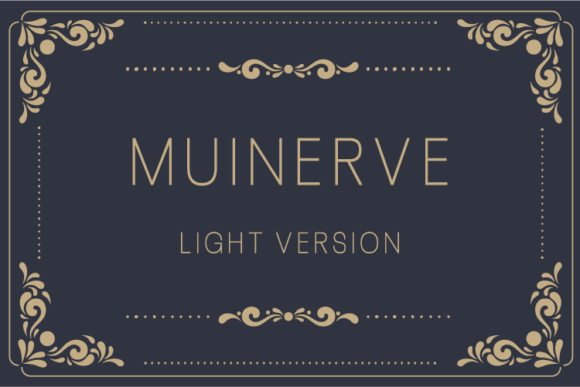
Embrace a World of Sophistication and Style with Muinerve Light Font
Step into the realm of typography excellence with Muinerve Light Font, a masterpiece crafted by the renowned Huntype. This captivating sans serif font effortlessly marries the elegance of calligraphy with a touch of modern flair.
Muinerve Light Font is the epitome of versatility, adapting seamlessly to an array of creative endeavors. Create letterheads that radiate professionalism, design titles that exude authority, and craft stationery that whispers a touch of sophistication.
Whether you're a seasoned designer or simply seeking to elevate your written creations, Muinerve Light Font is your gateway to typographic brilliance. Experience the transformative power of this font as it breathes new life into your designs, captivating your audience with its timeless appeal.